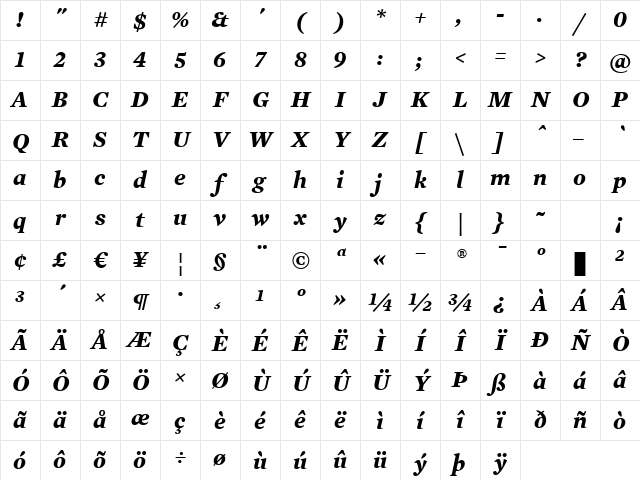
Mercury Text G3 Bold Italic
Design Context for Mercury Text G3
Mercury Text G3 is a composed and adaptable typeface that performs quietly and consistently across a wide range of design contexts. The slanted form adds forward momentum and visual energy. Its bold stroke weight gives it real presence on the page.